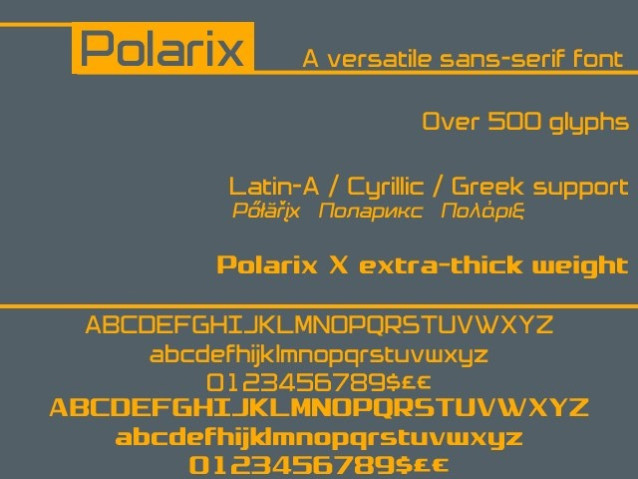
Polarix Font
Polarix Font is a versatile sans-serif font that will give your designs a clean, futuristic feel. With a large selection of Latin character support, alongside Greek and Cyrillic writing systems, as well as an extra-thick variant, Polarix suits itself for a wide variety of applications.